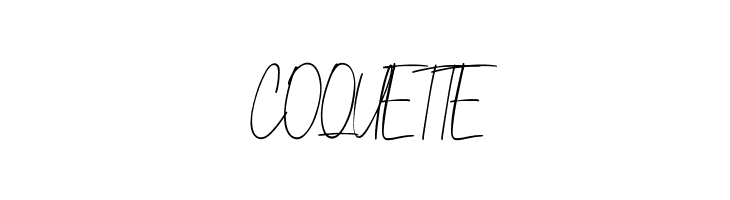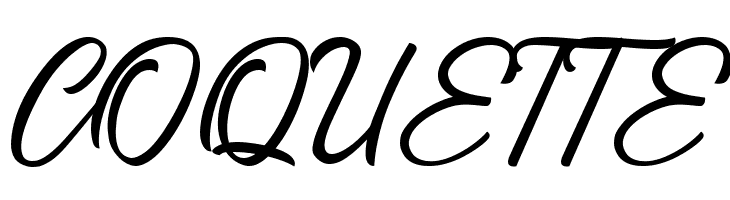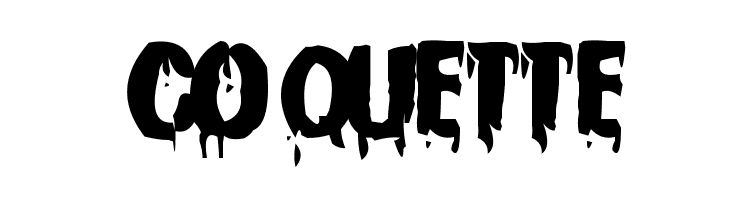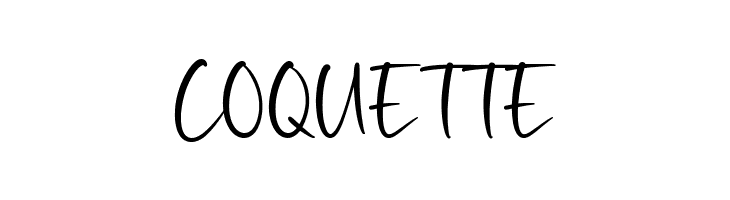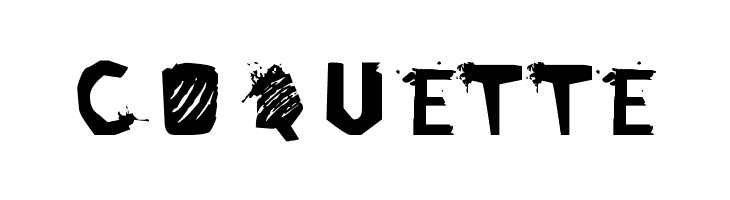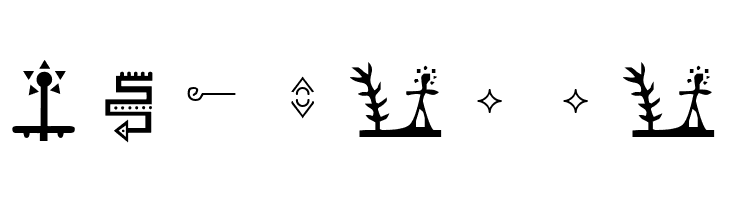
• go wild
( Mahdi Salah )
A rugged, distressed font with a wild, untamed aesthetic.
• Goblin Hunters
A playful and dynamic handwritten font with fluid strokes and a casual style.
• golden bar
A bold, geometric font with a modern, industrial feel.
• Golden Disks
( Giedi Prime )
Highly decorative font with pictographic, symbolic glyphs.
• Golden Gate
A graceful and elegant script font with connected characters and a cursive style.
• Goldenlead
A modern, handwritten font with elongated, elegant letterforms.
• Goldoni
• Gooey
A bold, dripping font with a gooey, liquid appearance.
• gorillaz 2
A bold, hand-drawn font with a raw, artistic style and irregular edges.